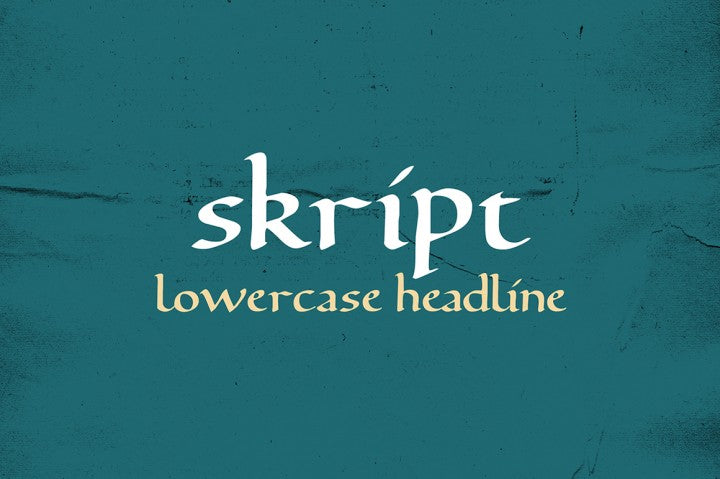
Free Font Skript - A Lowercase Headline Typeface
Featuring a free font skript - a lowercase headline typeface. This is a downloadable typeface file brought to you by The Hungry JPEG. You can create a professional designs with this fancy font.